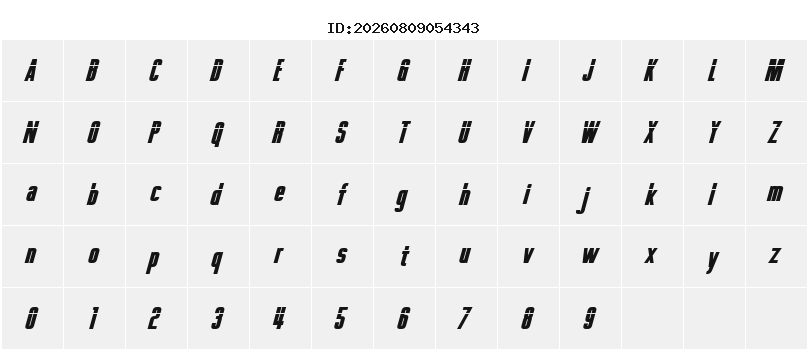
• Designer: Neale Davidson
• Manufacturer: Pixel Sagas
About Phelps.otf
Phelps.otf is a modern, elegant sans-serif font designed for ultimate readability and visual harmony. Perfect for branding, headlines, web design, and print materials.